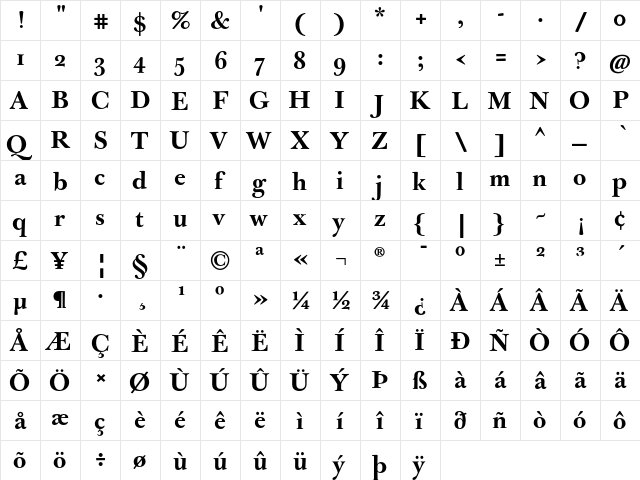
J Baskerville Bold
Design Context for J Baskerville Typeface
J Baskerville offers clean, dependable letterforms without strong stylistic allegiance, making it a practical choice for designers who need flexibility. Its bold stroke weight gives it real presence on the page.
Pro Tip: Pair J Baskerville with a font of contrasting weight or personality to build a more expressive typographic hierarchy.